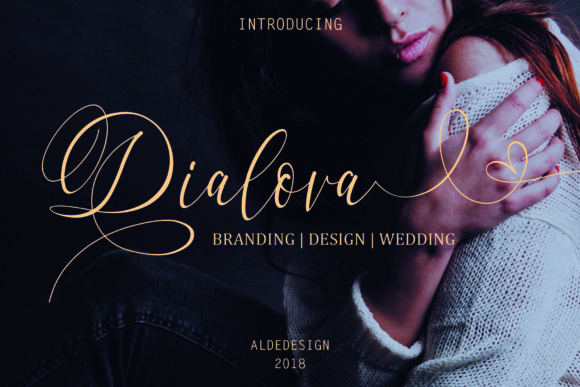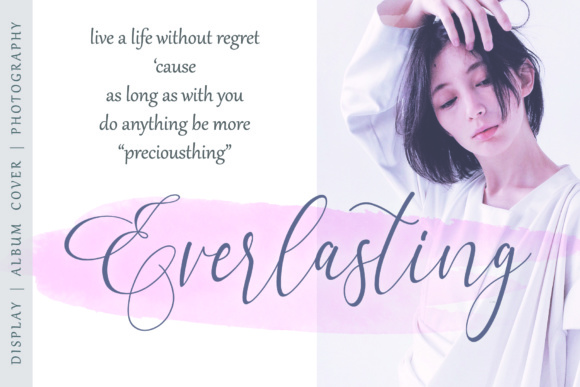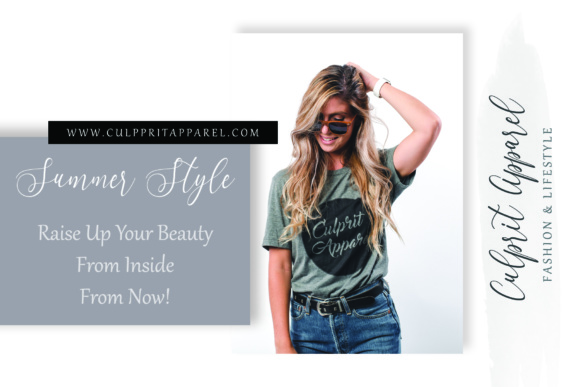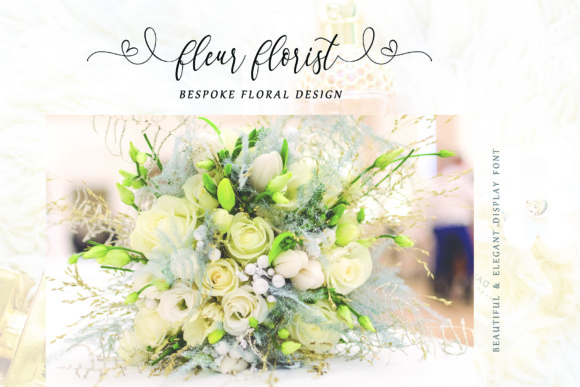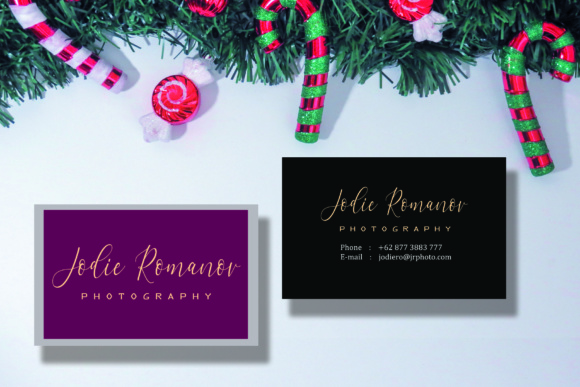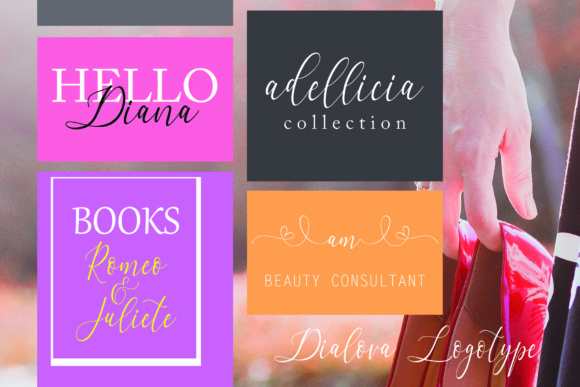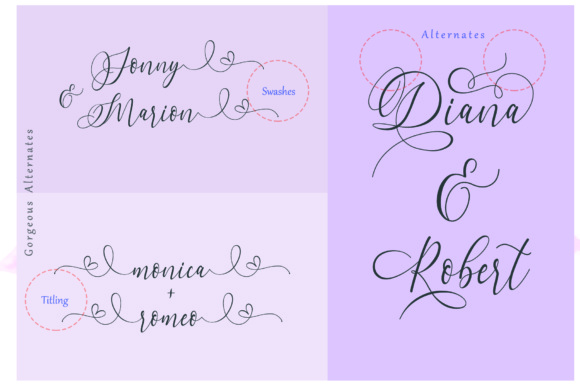
The Perfect Font for the Perfect Touch
Have you ever been working on a design project, pouring your heart and soul into every detail, only to feel like something is missing? You know, that elusive ‘wow’ factor that elevates your work from good to great? For many designers, this moment is when the right font makes all the difference.
This is where the Dialova Font comes in – a stunning calligraphy script font that adds a touch of elegance to any design. With its gorgeous swashes, titling, and alternates, Dialova Font is the perfect solution for designers looking to add sophistication to their work. Whether you’re creating a wedding invitation, a branding campaign, or a beautiful piece of art, Dialova Font is sure to make a lasting impression.
Dialova Font Key Features
- Unique Characteristics: The Dialova Font features a unique blend of modern and traditional elements, with clean lines, elegant curves, and a sophisticated feel that sets it apart from other fonts.
Dialova Font Review
I’ve had the chance to work with the Dialova font, and I must say it’s a mixed bag. ✨ On the positive side, the font’s unique blend of modern and vintage elements works well for creating a distinctive, eye-catching visual identity. The bold and condensed versions are particularly effective for headings and titles. The font’s versatility also makes it suitable for a wide range of design applications, from branding to editorial content.
- Unique blend of modern and vintage elements
- Bold and condensed versions are effective for headings and titles
- Versatile and suitable for various design applications
However, ⚠️ there are some limitations to consider. The font’s irregular letterforms and condensed spacing can sometimes make it difficult to read, especially in smaller text sizes. Additionally, the font’s character set is somewhat limited, which may not be suitable for languages that require a broader range of characters.
Overall, I think the Dialova font has potential, but it’s not a one-size-fits-all solution. It’s best suited for projects where a unique, attention-grabbing visual identity is a top priority. With careful use and consideration of its limitations, the Dialova font can be a valuable addition to any designer’s toolkit.
Dialova Font is ideal for:
- Designing elegant and modern logos.
- Creating eye-catching titles and headings.
- Adding a touch of sophistication to digital products.